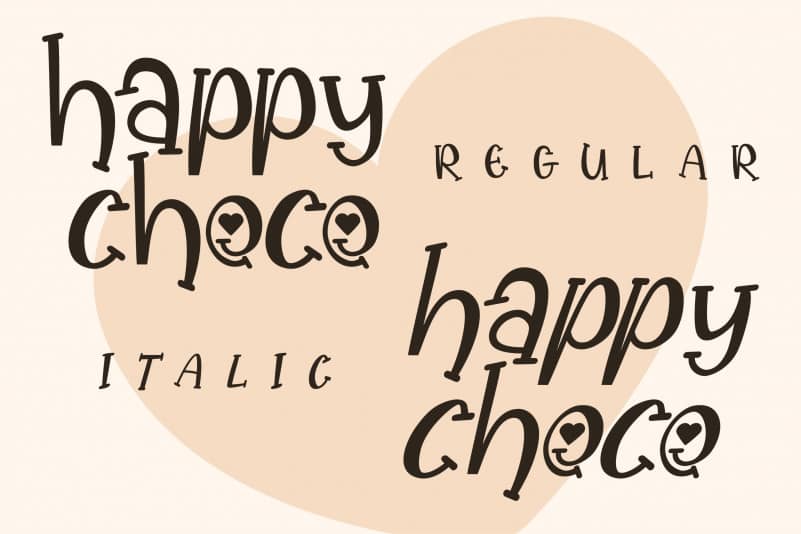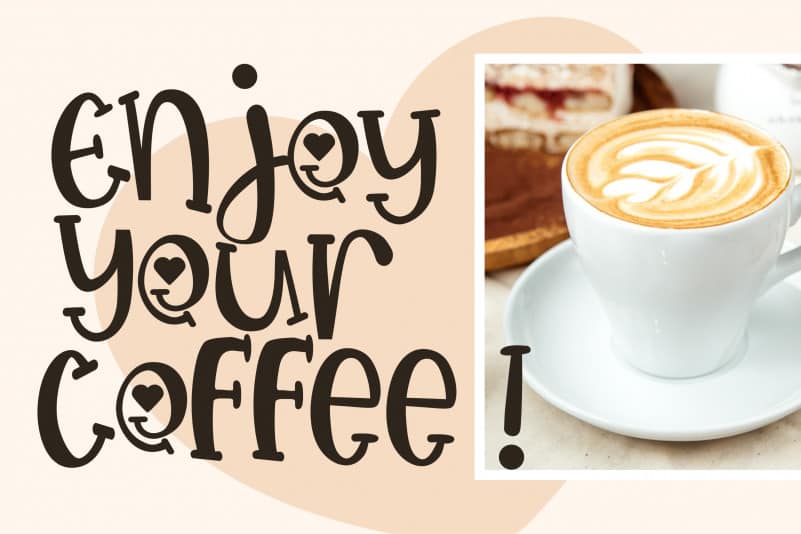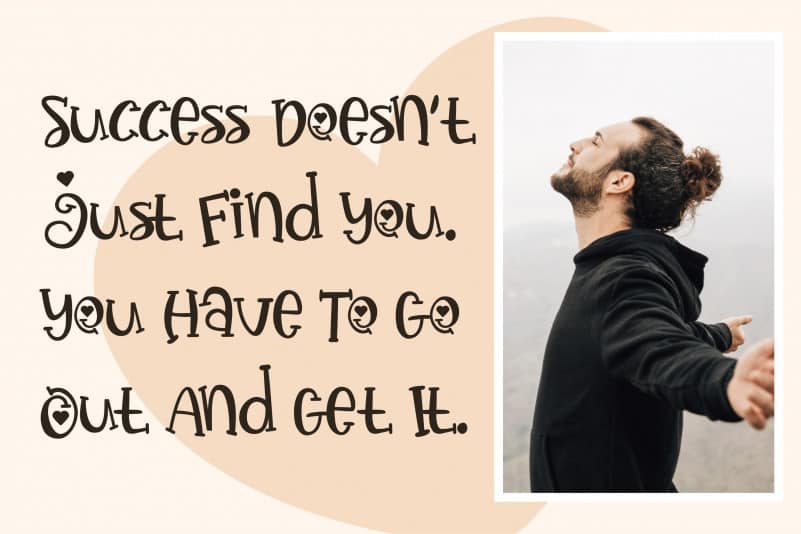
Happy Choco Display Font
Happy Choco Display Font is a quirky handwritten font with a unique style. Fall in love with its playful style and create gorgeous and delicious designs for your children related projects